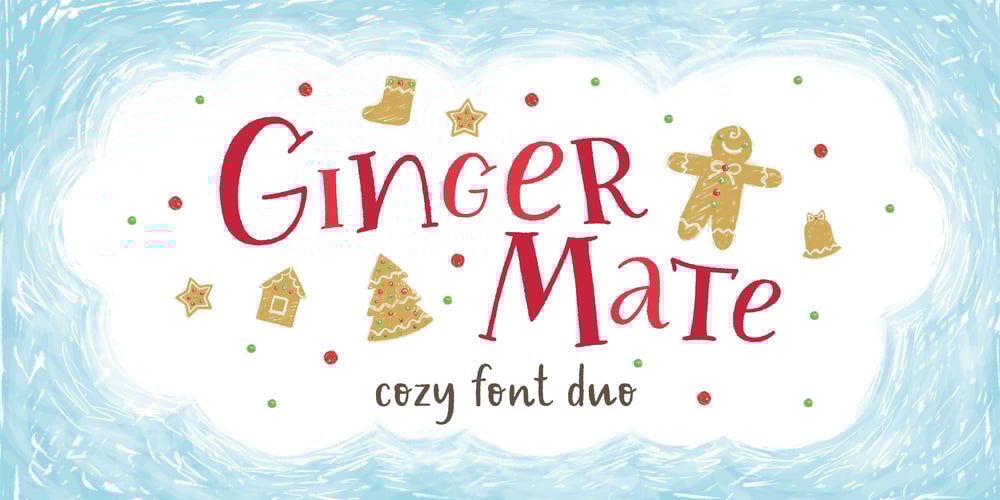
Ginger Mate MS
Ginger Mate MS font
Ginger Mate MS Font Family was designed by Marina Sozonova and published by Redcollegiya. Ginger Mate MS contains 2 styles and family package options. Ginger Mate is a handwritten funny font duo which makes it great for Christmas cards or advertising, as well as for any children’s design. Each of these fonts include latin and cyrillic characters, diacritics, numbers and punctuation.